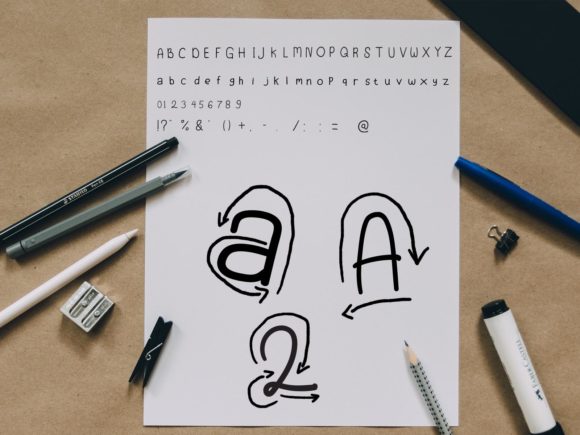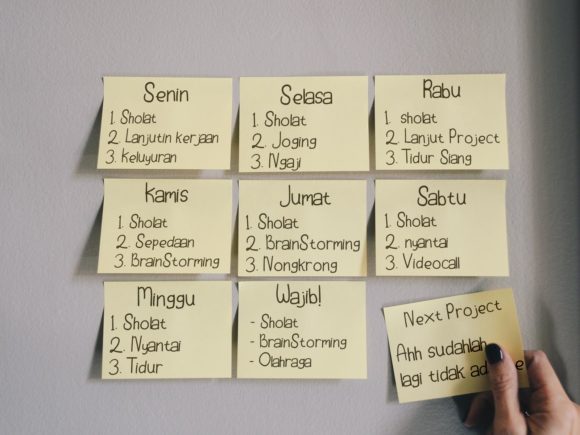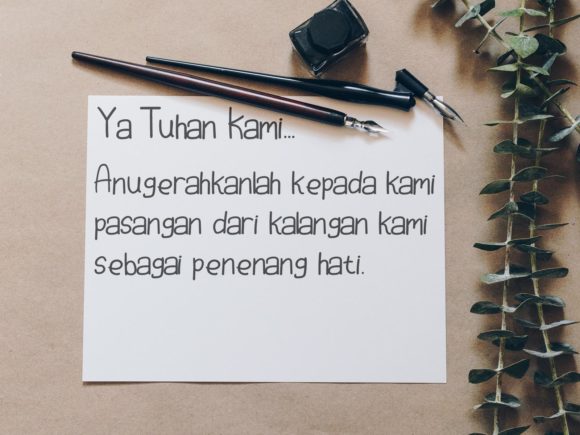
Lavendoor Font
About Lavendoor Font
Lavendoor is a simple and quirky handwritten font. Its clean and friendly style makes this font incredible versatile and fitting to a wide variety of designs!